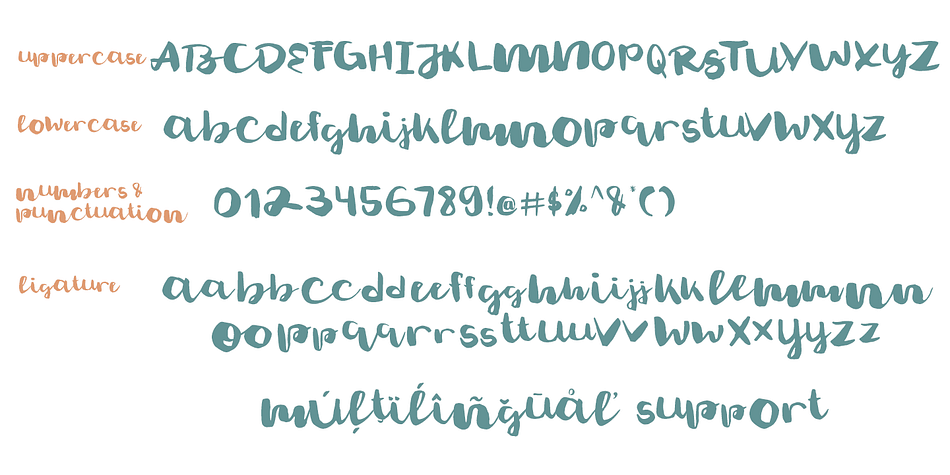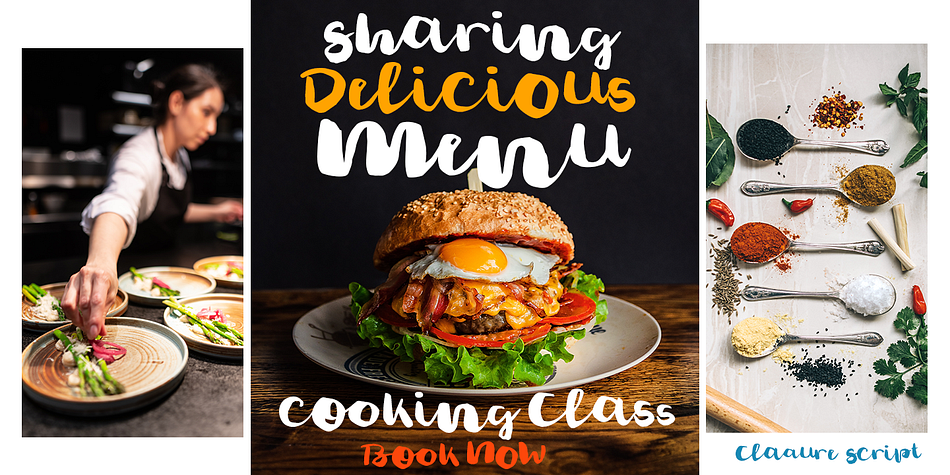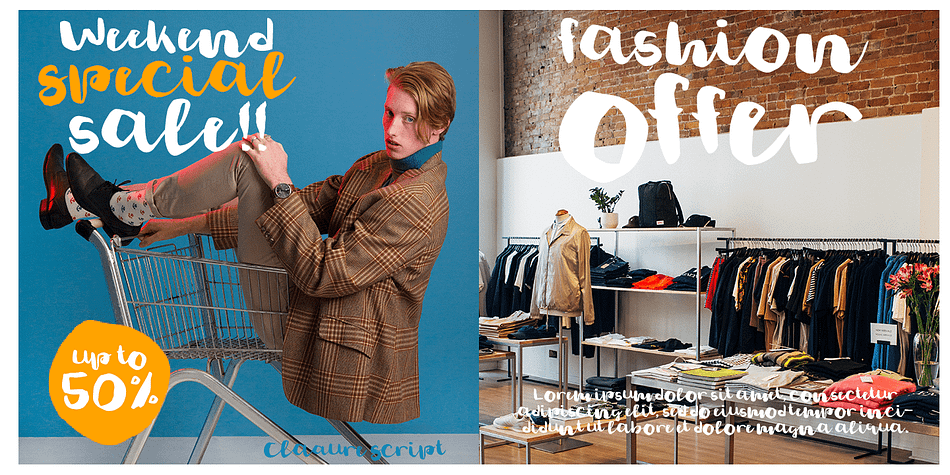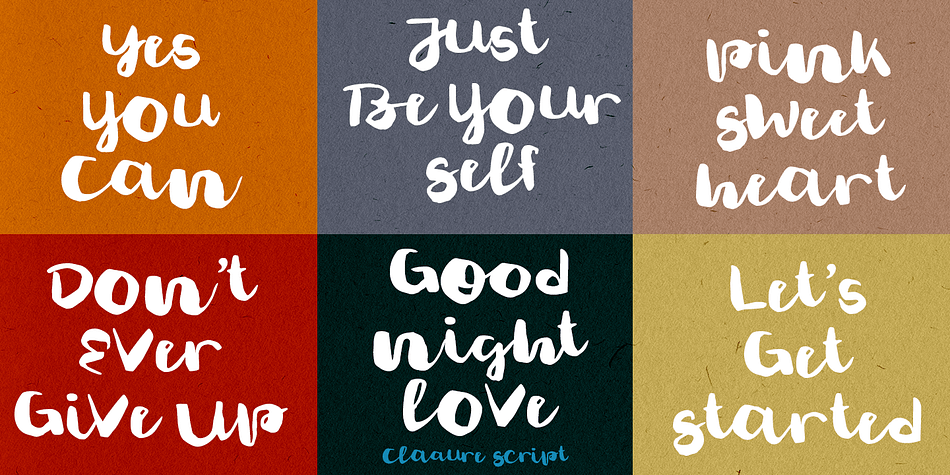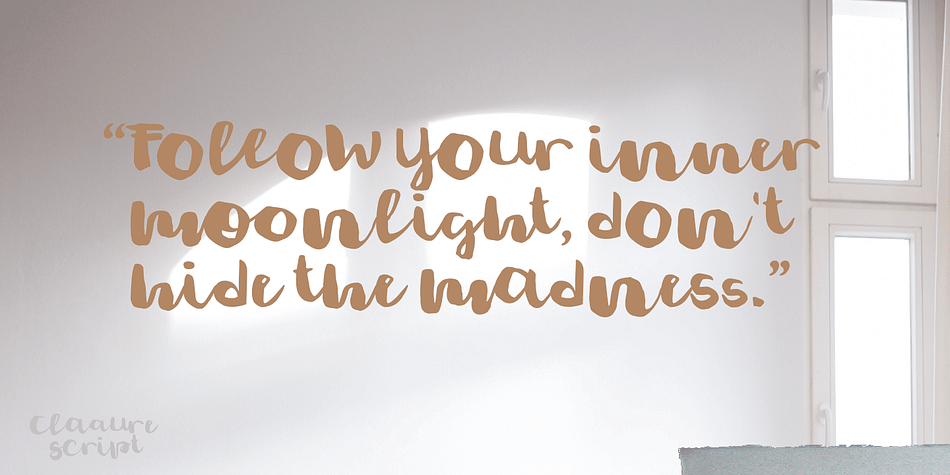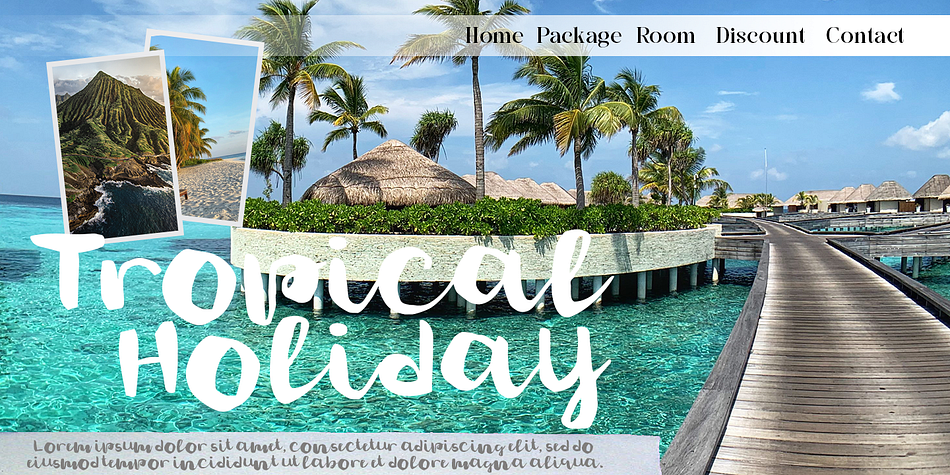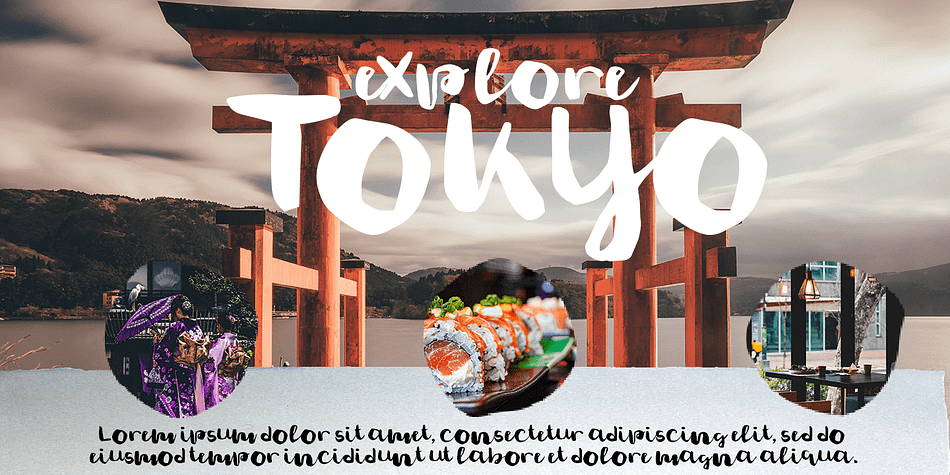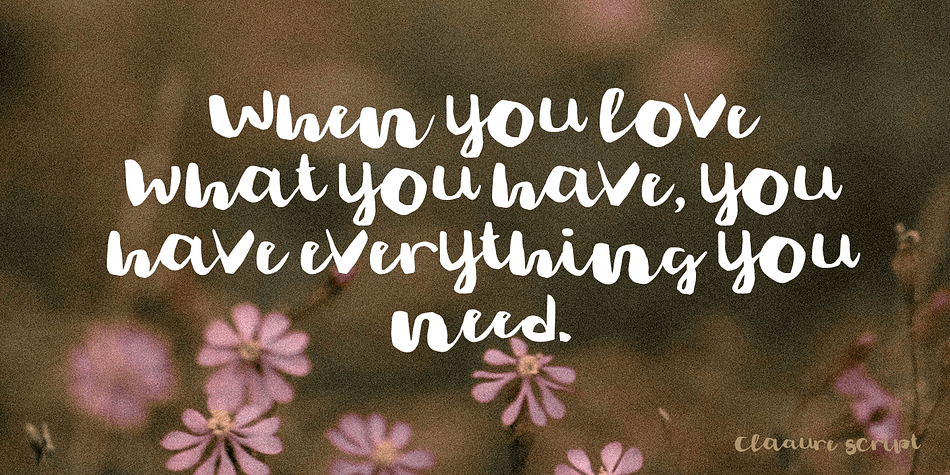
Claaure
Designed by Suandana Ipandemade, Claaure is a brush script and hand display font family published by madeDeduk.
Really excited to introduce Claaure is a realistic brush script! Claaure will be perfect for all your designs project.
- Uppercase
- Lowercase
- Ligature